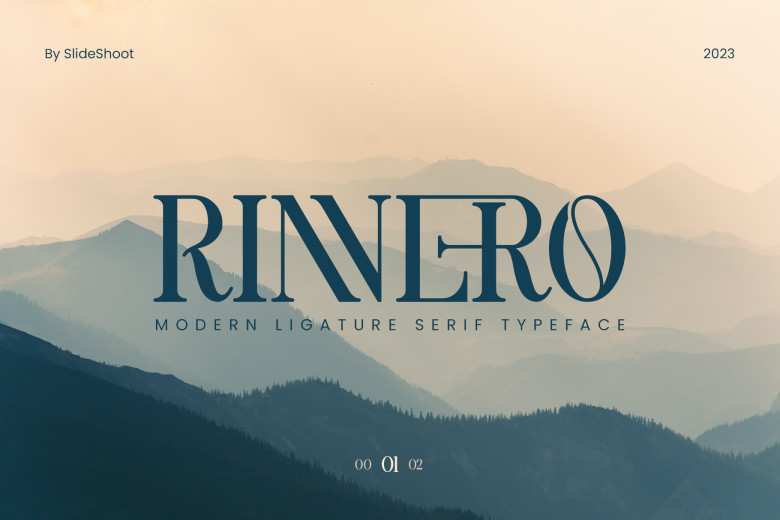
Rinnero Font
Rinnero is an elegant serif font with an impressive personality. Perfect for business cards, invitations, corporate logos and film titles as well as book titles, brands and design projects of any kind – its elegant ligatures, alternations features can give any project more vibrancy!
Rinnero Serif Font